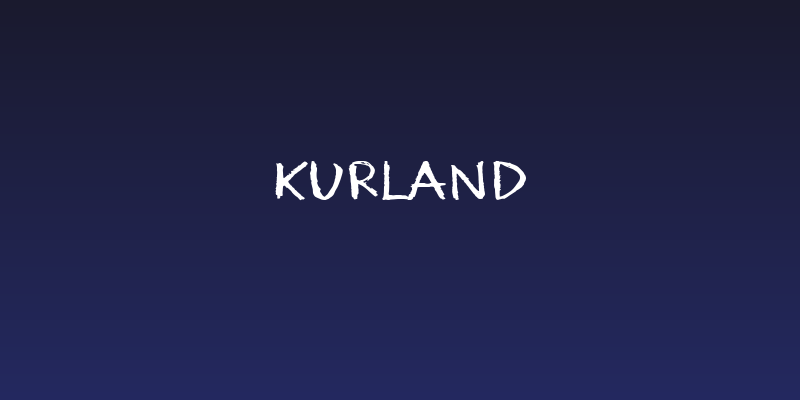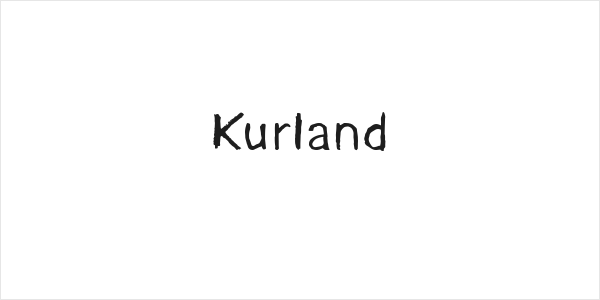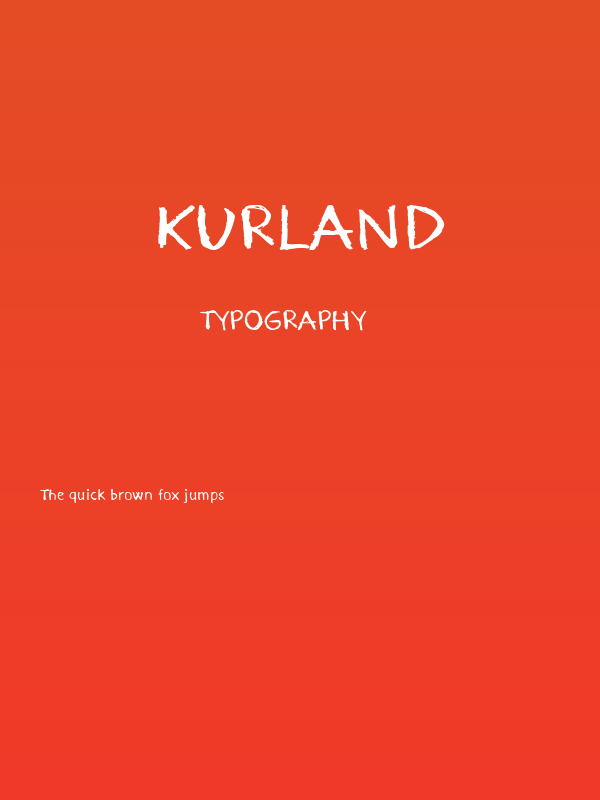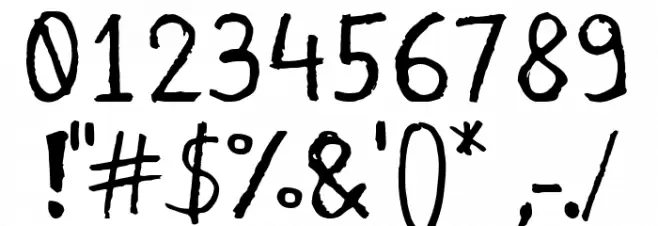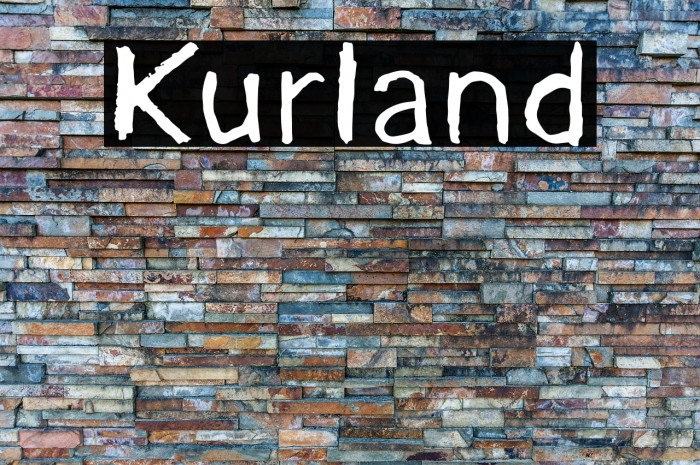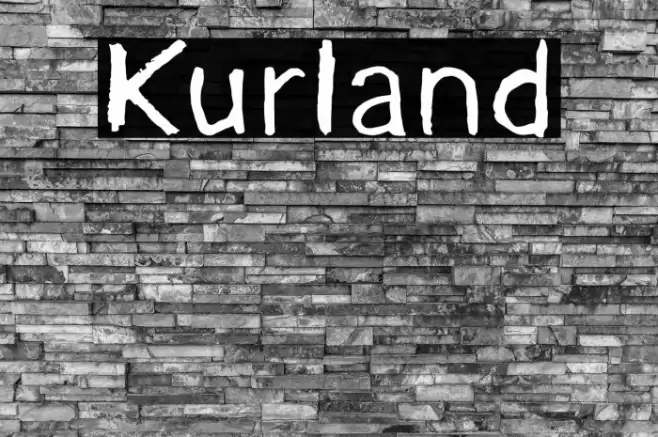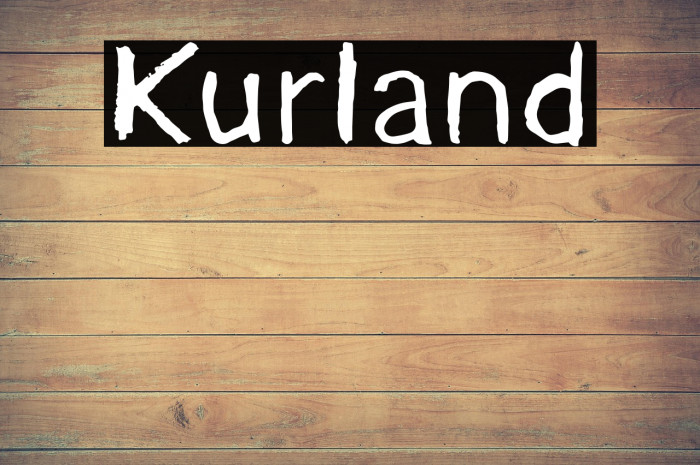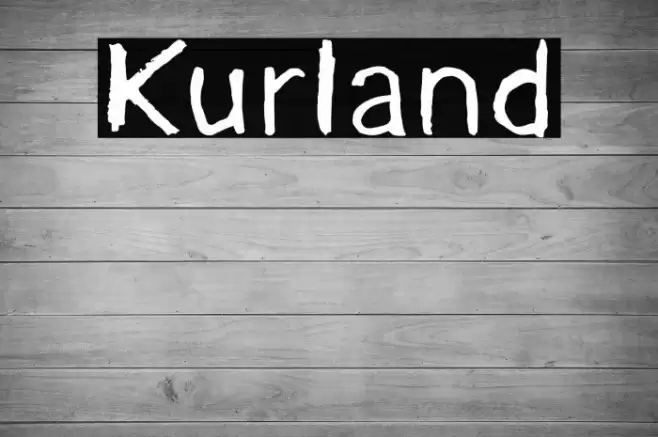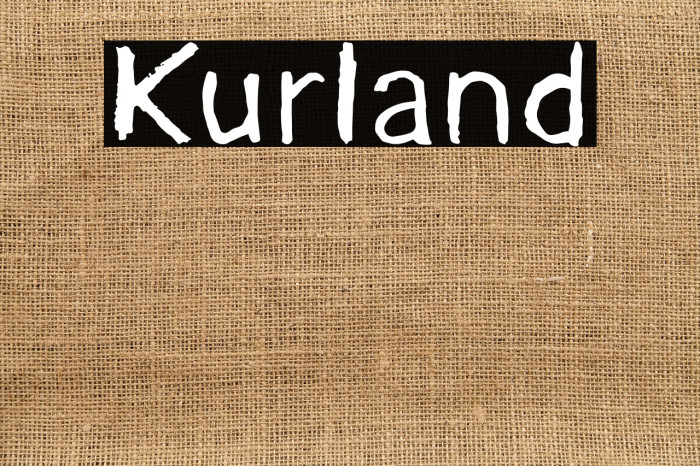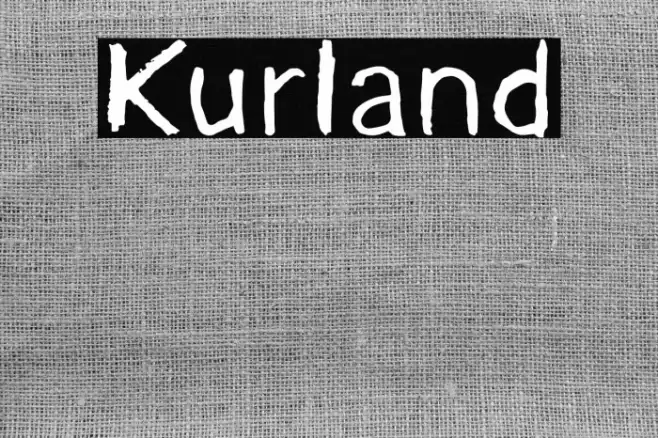
Kurland Font
Kurland Description
This font features a playful and hand-drawn aesthetic, characterized by its uneven strokes and organic feel. The letters have a casual, informal appearance, with varying thicknesses that add a dynamic quality to the text. The uppercase and lowercase letters maintain a consistent style, while the numerals and special characters blend seamlessly with the overall design. The font's irregularities give it a unique charm, making it suitable for projects that require a personal touch or a creative flair.
| Overall Style | Casual, Creative |
| Use Case | Headlines, Informal text, Creative projects |
| Proposed Projects | Ideal for children's books, creative posters, greeting cards, and casual branding. |